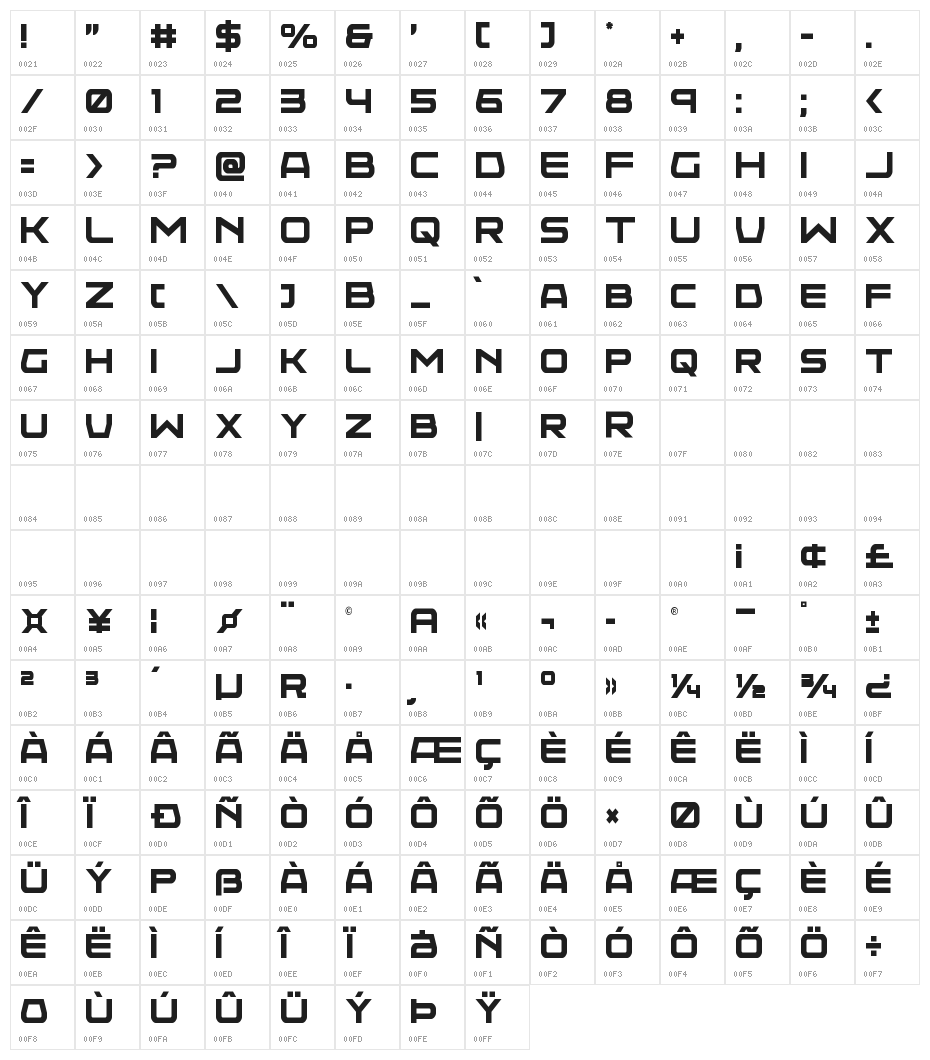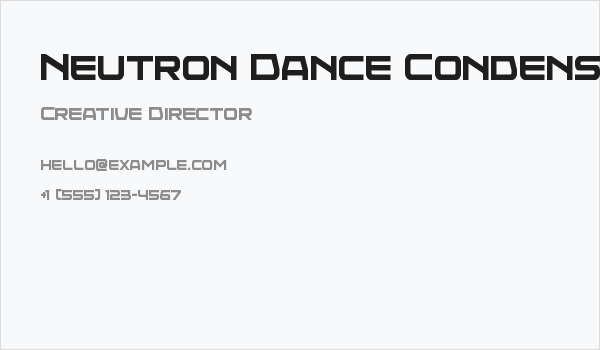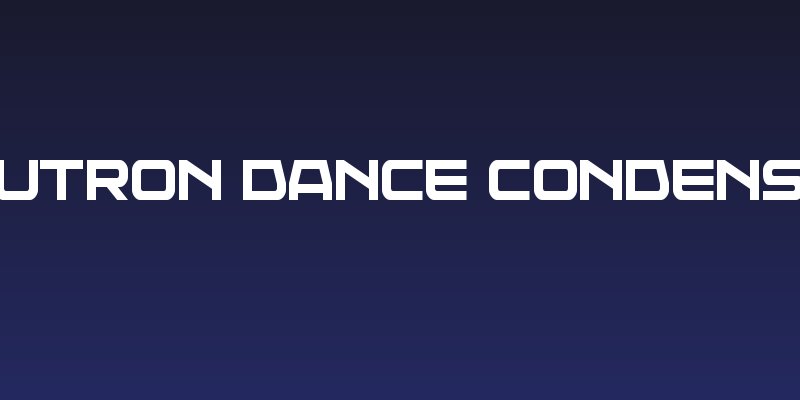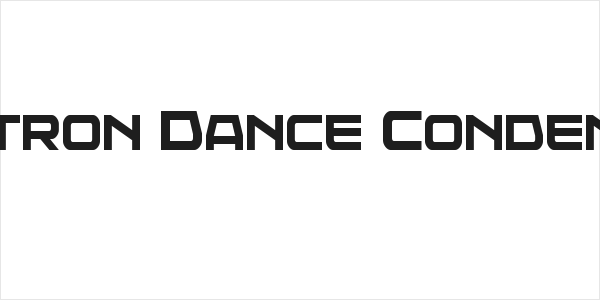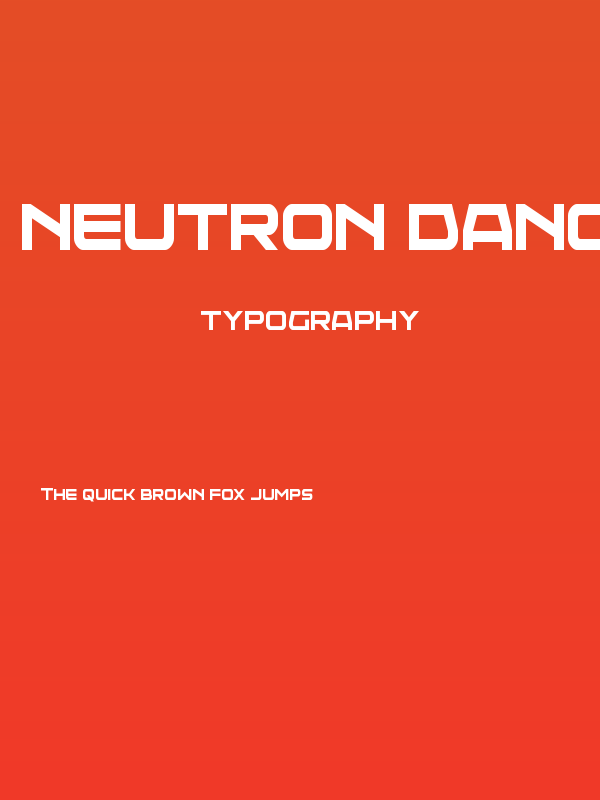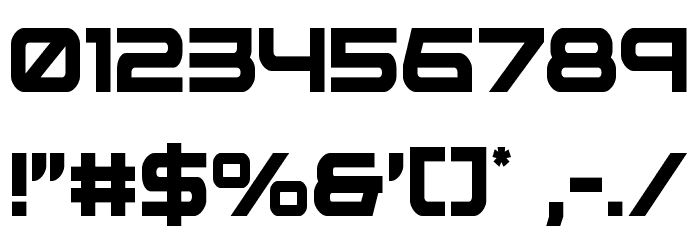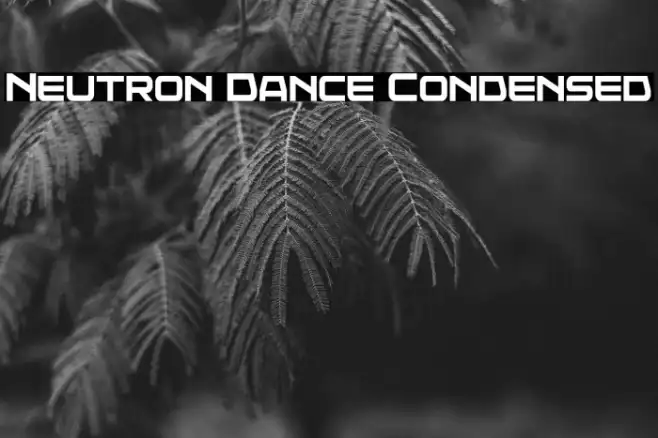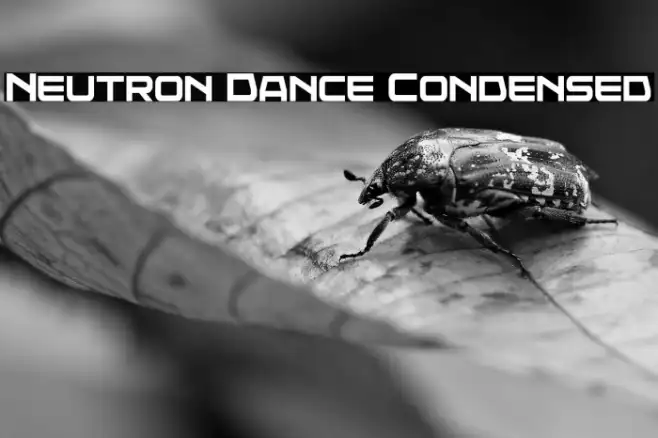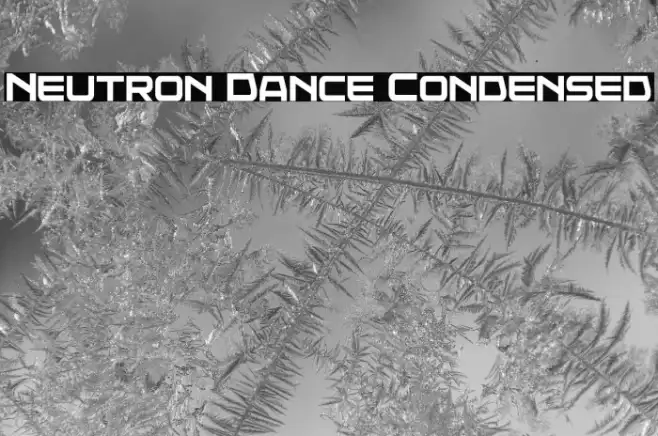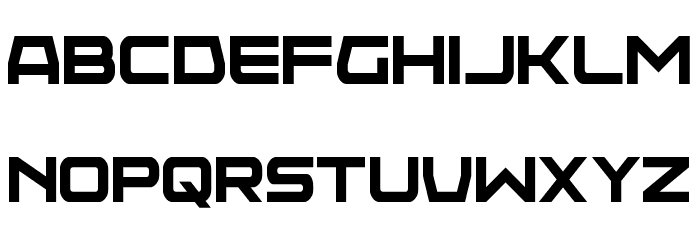
Neutron Dance Condensed Font
Neutron Dance Condensed Description
This font features a bold and futuristic design with a condensed structure, making it ideal for impactful and modern applications. The characters are geometric and angular, with a consistent stroke width that gives it a uniform appearance. The uppercase letters are particularly striking, with a strong presence that commands attention. The numerals and special characters maintain the same boldness, ensuring a cohesive look across all text elements. Its condensed nature allows for efficient use of space, making it suitable for headlines and titles where space is limited but impact is desired.
| Proposed Projects | Ideal for tech branding, sci-fi themed projects, video game titles, and modern poster designs. |